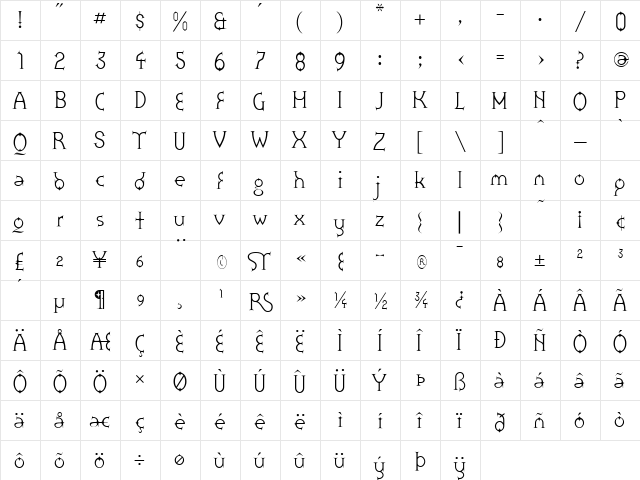
Zoroaster Regular
Design Context for Zoroaster Typeface
Zoroaster is a composed and adaptable typeface that performs quietly and consistently across a wide range of design contexts.